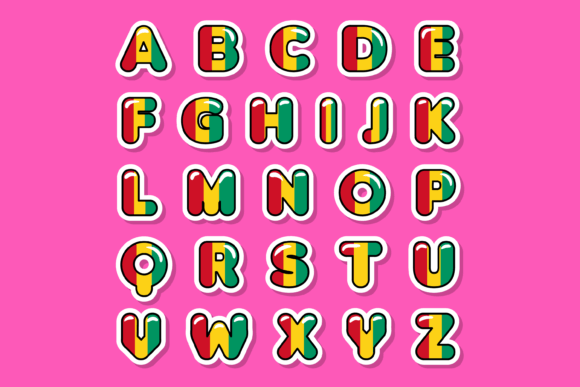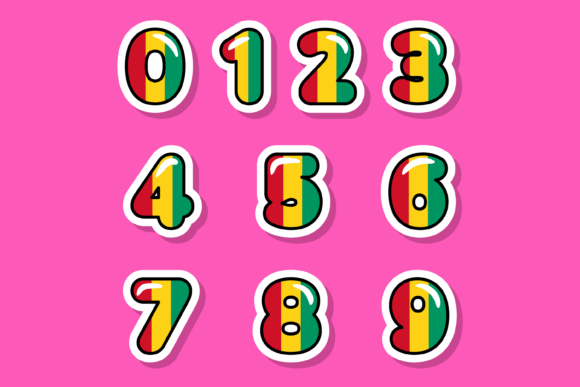
Introducing Guinea Font: A Vibrant Color Font Inspired by the Guinea Flag
Are you looking for a unique and eye-catching font to elevate your designs, crafts, or creations? Look no further than the Guinea Font, an incredibly cool color font designed in the style of the Guinea Flag. This stunning font is perfect for designers, crafters, and makers who want to add a lovely touch to their work.
What is Guinea Font?
Guinea Font is a color font, specifically an Opentype-SVG font, which means it’s a cutting-edge font technology that allows for colorful and dynamic text rendering. This font is carefully crafted to resemble the iconic Guinea Flag, with its vibrant colors and distinctive style.
Key Features of Guinea Font
- Color Font Technology: Guinea Font is an Opentype-SVG font, which supports color glyphs, allowing for stunning and detailed designs.
Use Cases for Guinea Font
Guinea Font is an incredibly versatile font that can be used in a wide range of applications, including:
- Custom Designs: Add a pop of color and personality to your graphic designs, logos, and branding materials.
- DIY Crafts: Use Guinea Font to create stunning and unique crafts, such as paper crafts, iron-on designs, and more.
- Creations: Whether you’re making signs, banners, or other visual projects, Guinea Font is the perfect choice for adding a touch of style and flair.
Why Choose Guinea Font?
So, why should you choose Guinea Font for your next project? Here are just a few reasons:
- Unique and Eye-Catching: Guinea Font is a one-of-a-kind font that will make your designs stand out from the crowd.
- High-Quality: Our font is carefully crafted to ensure high-quality rendering and crisp lines, even at small sizes.
Tips for Using Guinea Font
To get the most out of Guinea Font, here are some tips and tricks:
- Experiment with Colors: Try out different color combinations to see what works best for your design.
- Play with Size: Guinea Font looks great at a variety of sizes, from small and delicate to large and bold.
- Combine with Other Fonts: Pair Guinea Font with other fonts to create interesting and dynamic text combinations.
In conclusion, Guinea Font is an amazing choice for designers, crafters, and makers who want to add a touch of style and personality to their work. With its vibrant colors, unique design, and compatibility with popular software, this font is sure to elevate your creations to the next level. So why wait? Download Guinea Font today and start creating something amazing!